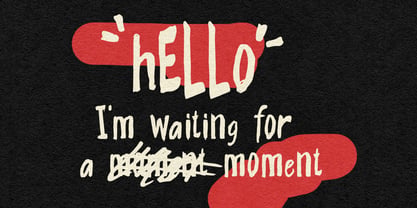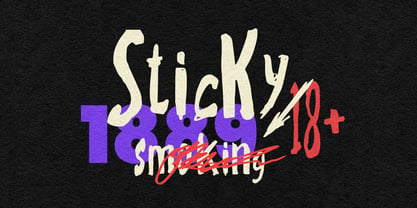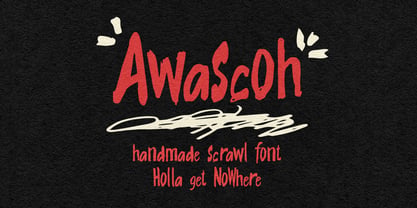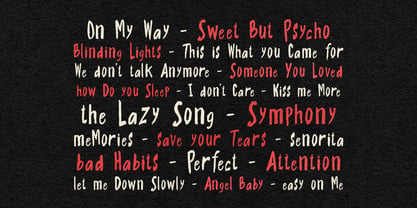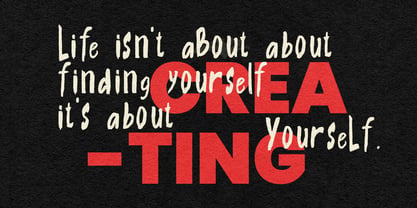
MC Awascoh
by Maulana Creative
The MC Awascoh Font Family was designed by Gilang Maulana and published by Maulana Creative. MC Awascoh contains 1 styles. More about this family
Give your designs an authentic brush handcrafted feel. “Awascoh Handmade Scrawl Font” is perfectly suited to signature, stationery, logo, typography quotes, website header, branding and more.
Designers: Gilang Maulana
Foundry: Maulana Creative